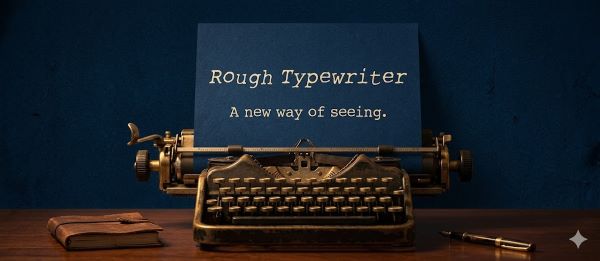
Rough Typewriter Font
Rough Typewriter by JibbaJabba Fonts is a free typewriter font with deliberate roughness baked into every letterform — its textured, worn strokes and variable impression giving it an immediately tactile quality that makes it one of the most convincingly aged typewriter font choices available. Includes Regular, Italic, Bold, and Bold Italic styles plus auto-ligatures for double letters, adding a layer of typographic authenticity rarely found at no cost. Over 1.5 million downloads confirm its broad appeal. Free for personal use.